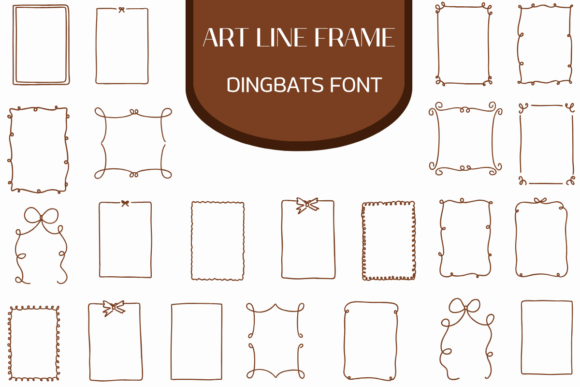
Frame Your Creativity: Unlocking the Magic of Art Line Frame Font
There’s nothing quite like the thrill of a blank page waiting to be transformed into a masterpiece. You sit down at your desk, surrounded by scraps of paper, pens, and a sea of possibilities. Your creative mind starts to wander, and before you know it, a beautiful idea begins to take shape. But have you ever felt like your design needed that perfect finishing touch – something to elevate it from ordinary to extraordinary?
Enter the Art Line Frame Font, a stunning collection of hand-drawn frames in various whimsical and elegant styles. This versatile font is designed to add a charming finishing touch to any layout, making it perfect for invitations, journaling, digital scrapbooking, social media posts, and educational materials. As a designer, you know how valuable it is to have the right tools at your disposal. The Art Line Frame Font is a game-changer, offering a wealth of creative possibilities that will take your designs to the next level.
Key Features of Art Line Frame Font
- Unique Characteristics: Art Line Frame Font features intricate frame designs and ornate details, adding a touch of elegance to any text.
Art Line Frame Font Review
First off, I have to say that I’m really impressed with the overall aesthetic of the Art Line Frame Font ✨. The unique blend of hand-drawn and digital elements gives it a one-of-a-kind feel that’s perfect for adding some personality to your designs. I also love how versatile it is – it works beautifully for both headings and body text.
Some of the strengths of the Art Line Frame Font include:
- Highly customizable: The font’s flexibility makes it easy to adapt to different design styles and themes.
- Unique flair: The hand-drawn elements add a touch of whimsy that’s hard to find in other fonts.
- Good legibility: Despite its decorative elements, the font is still easy to read and understand.
- May not be suitable for small text: The font’s decorative elements can make it difficult to read in smaller sizes.
- Limited character set: The font may not include all the characters you need for your specific project.
- Can be overwhelming: If used too heavily, the font’s unique elements can be overwhelming and detract from the overall message.
Overall, I think the Art Line Frame Font is a great choice for designers looking to add some personality to their work ✨. While it may have some limitations, its unique style and versatility make it a valuable addition to any design toolkit.
Art Line Frame Font Practical Application Guide
The Art Line Frame Font is ideal for:
- Creating decorative text and titles
- Designing posters and flyers
- Adding a touch of elegance to presentations and documents
Remember to experiment with different font sizes, colors, and frame styles to get the most out of this versatile font.